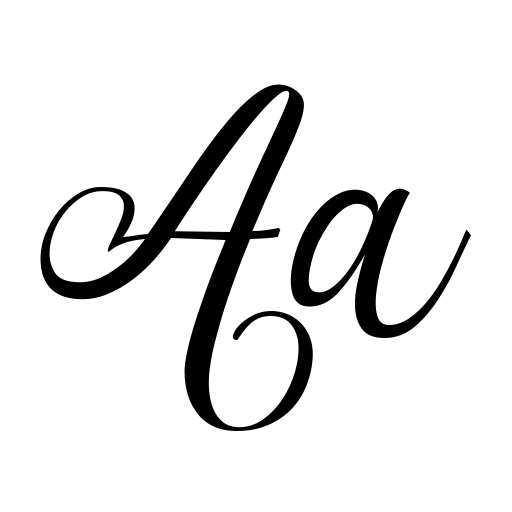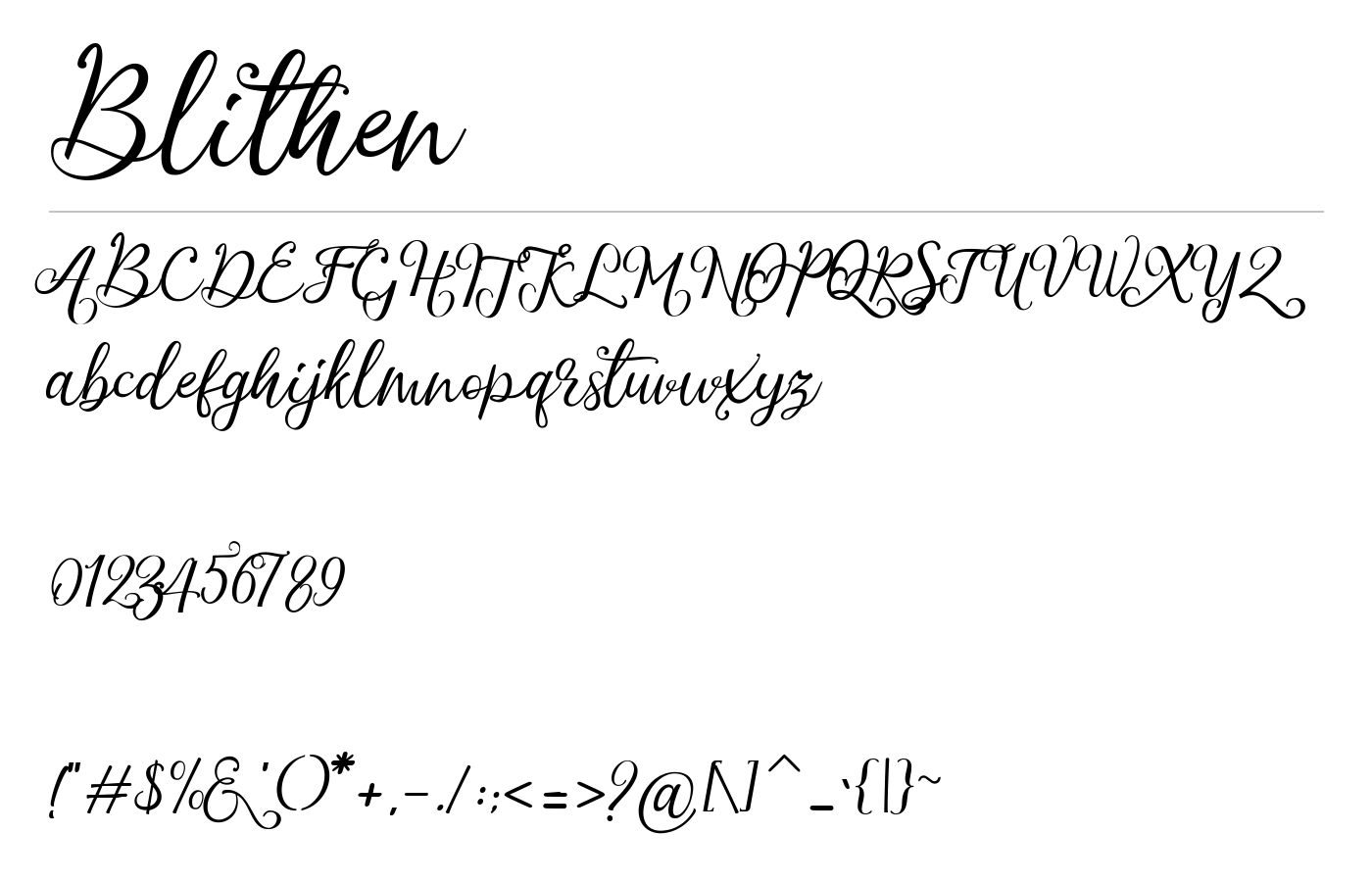
Blithen is an elegant script font featuring graceful, flowing letterforms with delicate curves and fine strokes that convey a sophisticated, handwritten charm. Its stylish uppercase includes ornate flourishes, while the lowercase characters maintain readability, making it ideal for luxury branding, invitations, and elegant editorial designs. This font’s refined, artistic feel suits projects that seek to express creativity, beauty, and a personal touch.
Blithen Font
About Blithen Font
| Font family | Blithen Font |
| Designer | Arief.hk |